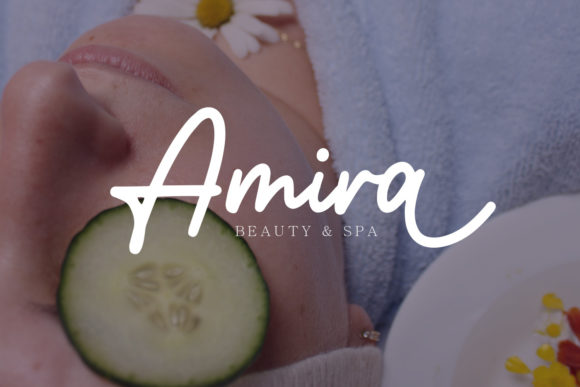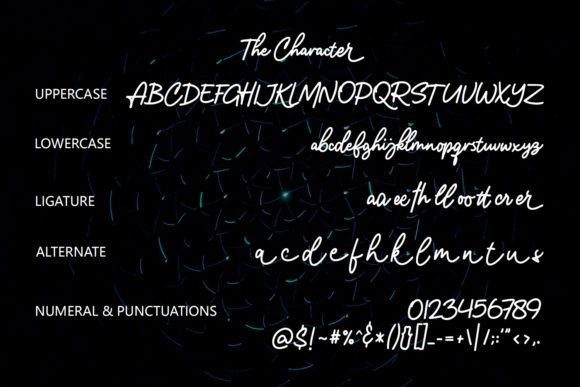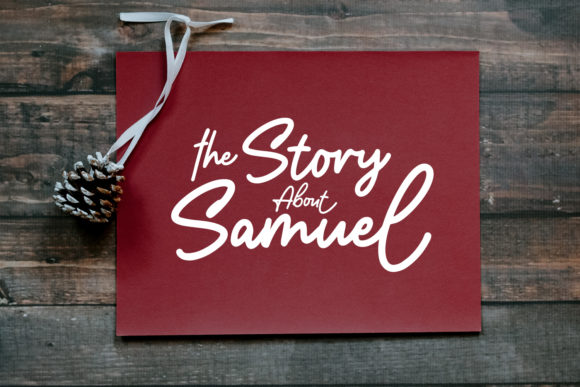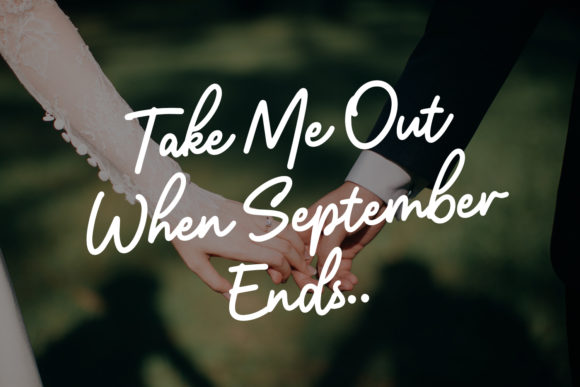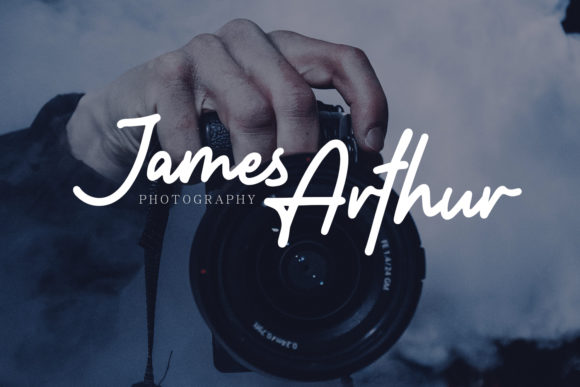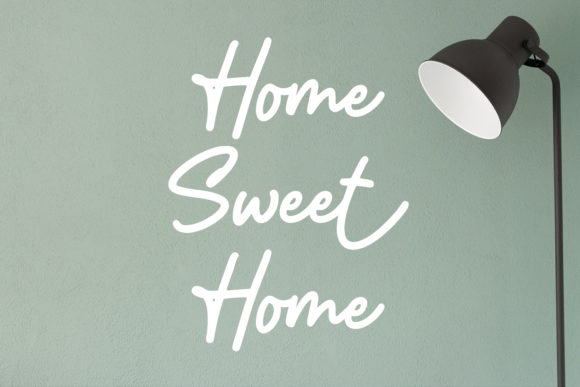
Discover the Elegance of Amterina Font: Elevate Your Designs with this Dazzling Script Font
In the world of typography, a font can make or break a design. It’s the perfect blend of style, elegance, and readability that can transform a simple creation into a masterpiece. If you’re a designer, craftsperson, or simply a creative enthusiast, you’re in luck because today we’re shining the spotlight on the stunning Amterina Font. This dazzling script font is about to become your new favorite asset, capable of enhancing any project it touches.
What is Amterina Font?
Amterina Font is a beautiful, flowing script font designed to add a touch of sophistication and elegance to your designs. Its fluid strokes and intricate details make it perfect for a wide range of projects, from wedding invitations and branding materials to packaging and digital content. Whether you’re working on a personal project or a client’s, Amterina Font is sure to impress.
Key Features of Amterina Font
- Unique and Elegant Design: Amterina Font boasts a distinctive, cursive style that’s both modern and timeless. Its unique letterforms and flowing connections make it stand out from more traditional fonts.
- Highly Versatile: This font is incredibly versatile, suitable for a variety of design projects including but not limited to: logos, business cards, social media graphics, and more.
- Easy to Read: Despite its elegant and intricate design, Amterina Font remains highly legible, making it perfect for both headings and body text.
- Multilingual Support: Catering to a global audience, Amterina Font supports multiple languages, ensuring that your designs can reach and resonate with a wide audience.
Why Choose Amterina Font?
With so many fonts available, why should Amterina Font be your go-to choice? The answer lies in its unparalleled ability to elevate your designs. Here are a few reasons why Amterina Font should be a part of your font library:
- Enhances Creativity: Amterina Font’s unique style sparks creativity, allowing you to experiment with various design concepts and ideas.
- Professional Look: It gives your projects a professional and polished look, which is essential for building a strong brand identity.
How to Use Amterina Font in Your Designs
Incorporating Amterina Font into your designs is straightforward. Here are some tips to get you started:
- Pair it with Neutral Fonts: For optimal readability, pair Amterina Font with simpler, neutral fonts for body text.
- Experiment with Sizes: Play around with different font sizes to create visual hierarchy and emphasis in your designs.
- Use it for Headings and Titles: Amterina Font shines in headings and titles, where its elegant design can truly be appreciated.